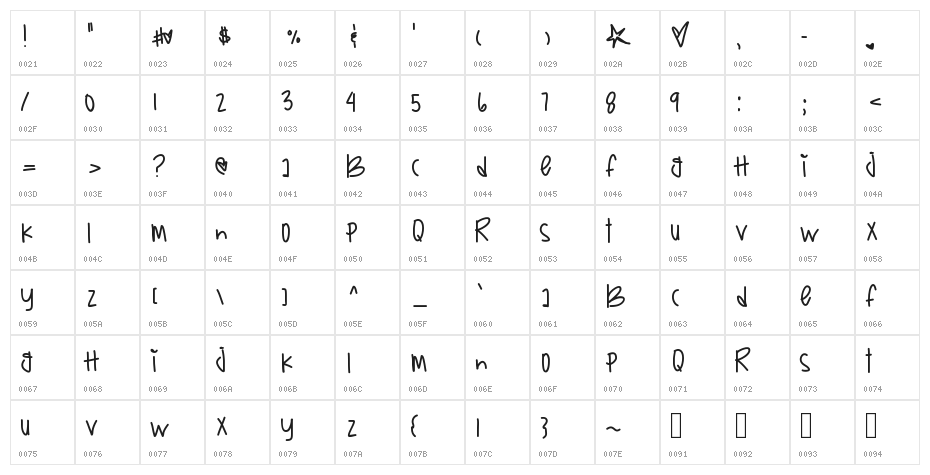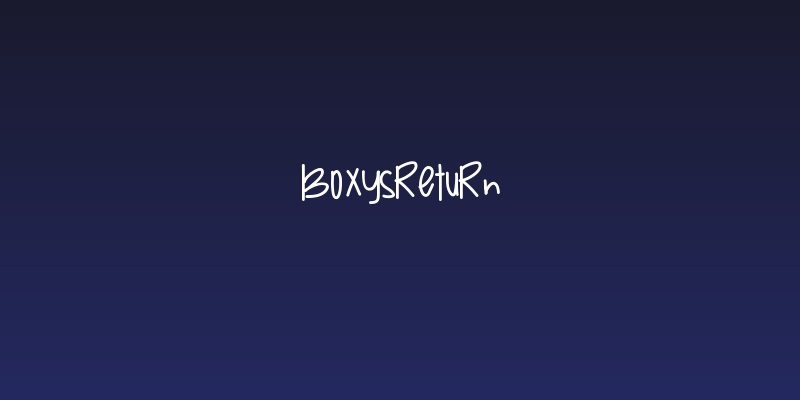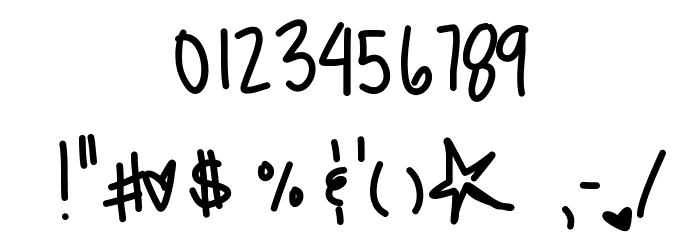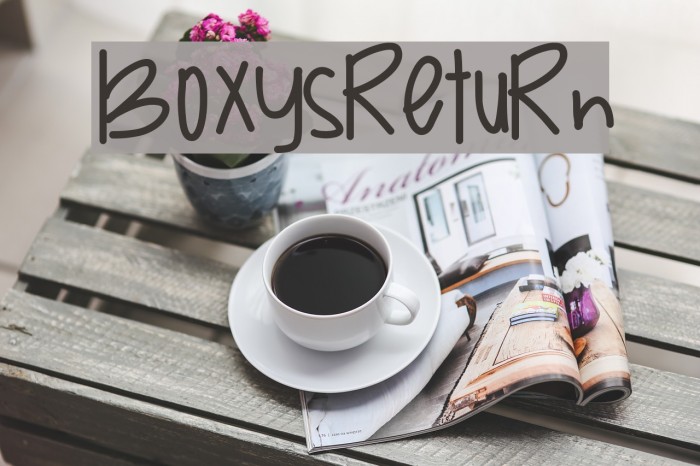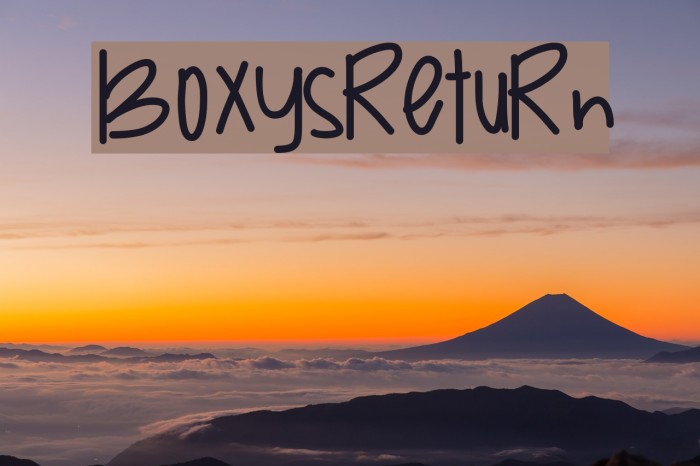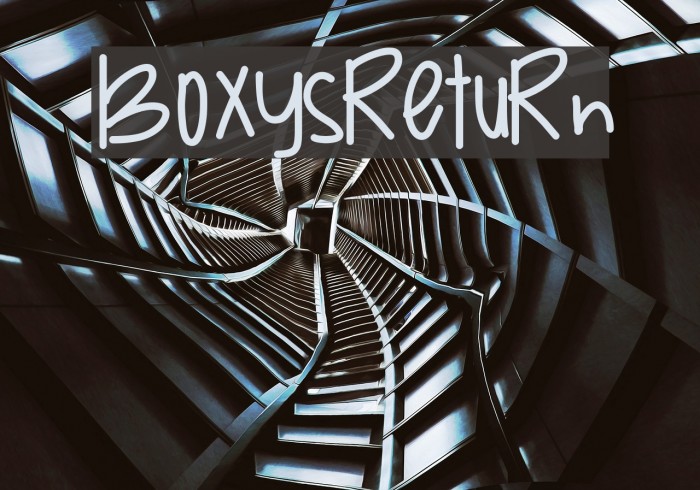
BoxysReturn Font
BoxysReturn Description
This playful and casual handwritten font features a unique and quirky style with irregular strokes and a friendly appearance. The characters are slightly slanted, giving it a dynamic and informal feel. The uppercase and lowercase letters maintain a consistent flow, while the numbers and special characters add to its versatility. The font's organic and spontaneous look makes it ideal for projects that require a personal touch or a fun, approachable vibe.
| Use Case | Logos, Headlines, Informal Invitations |
| Proposed Projects | Ideal for greeting cards, children's books, personal branding, and social media graphics. |